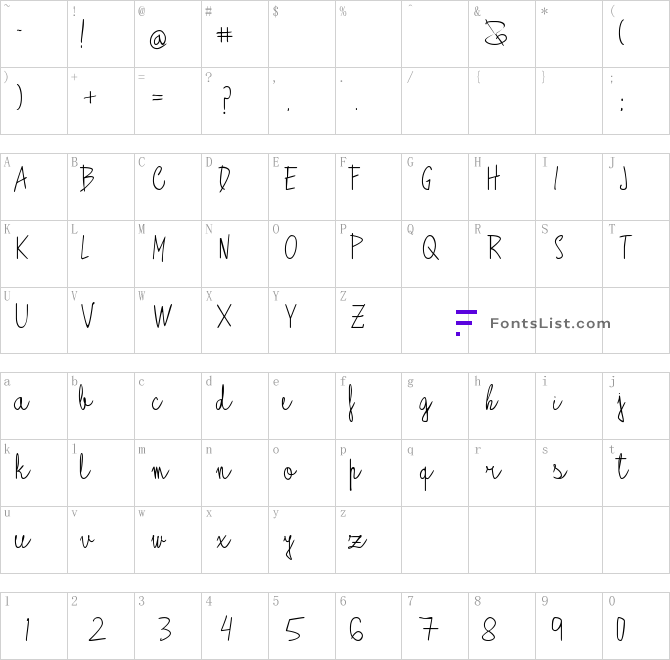
- Font Name:Alagunna
Alagunna.ttf is a very beautiful artistic font, Alagunna.ttf is widely used in the design and printing of various books and pictures,Alagunna.ttf has a strong visual impact,Alagunna.ttf is a commonly used font in newspapers, magazines and books, and is used in posters, e-commerce Poster design, store design, logo design, font design and other fields.Alagunna.